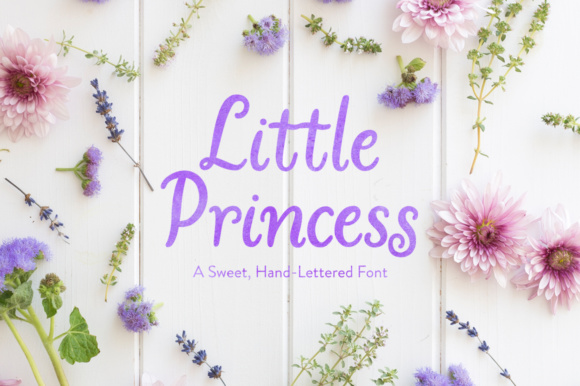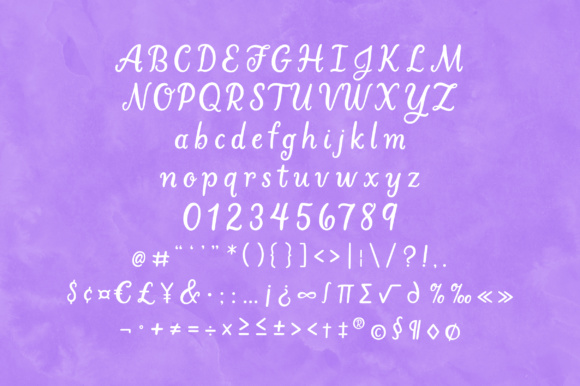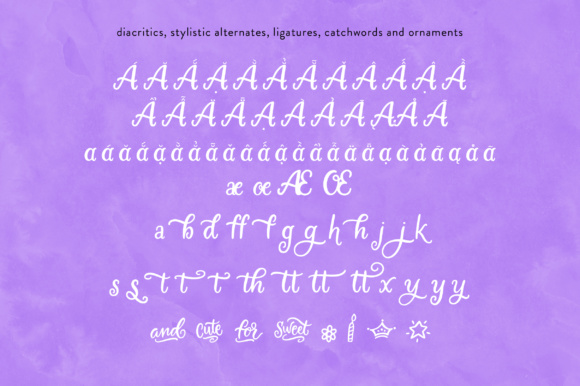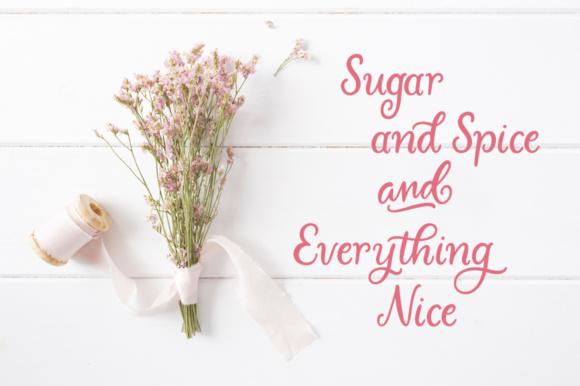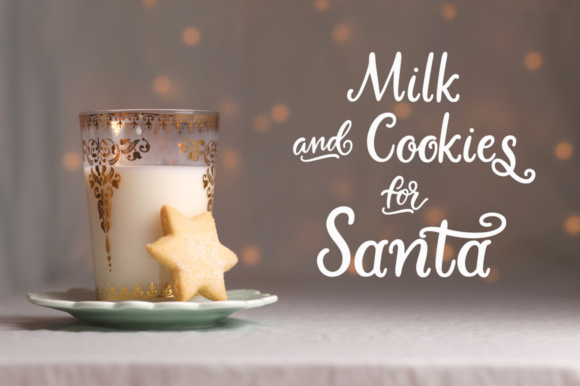
Little Princess Font
About Little Princess Font
Little Princess is a sweet, rounded, slightly angled, hand-lettered font. Little Princess is adorable on invitations, logos and photo overlays.